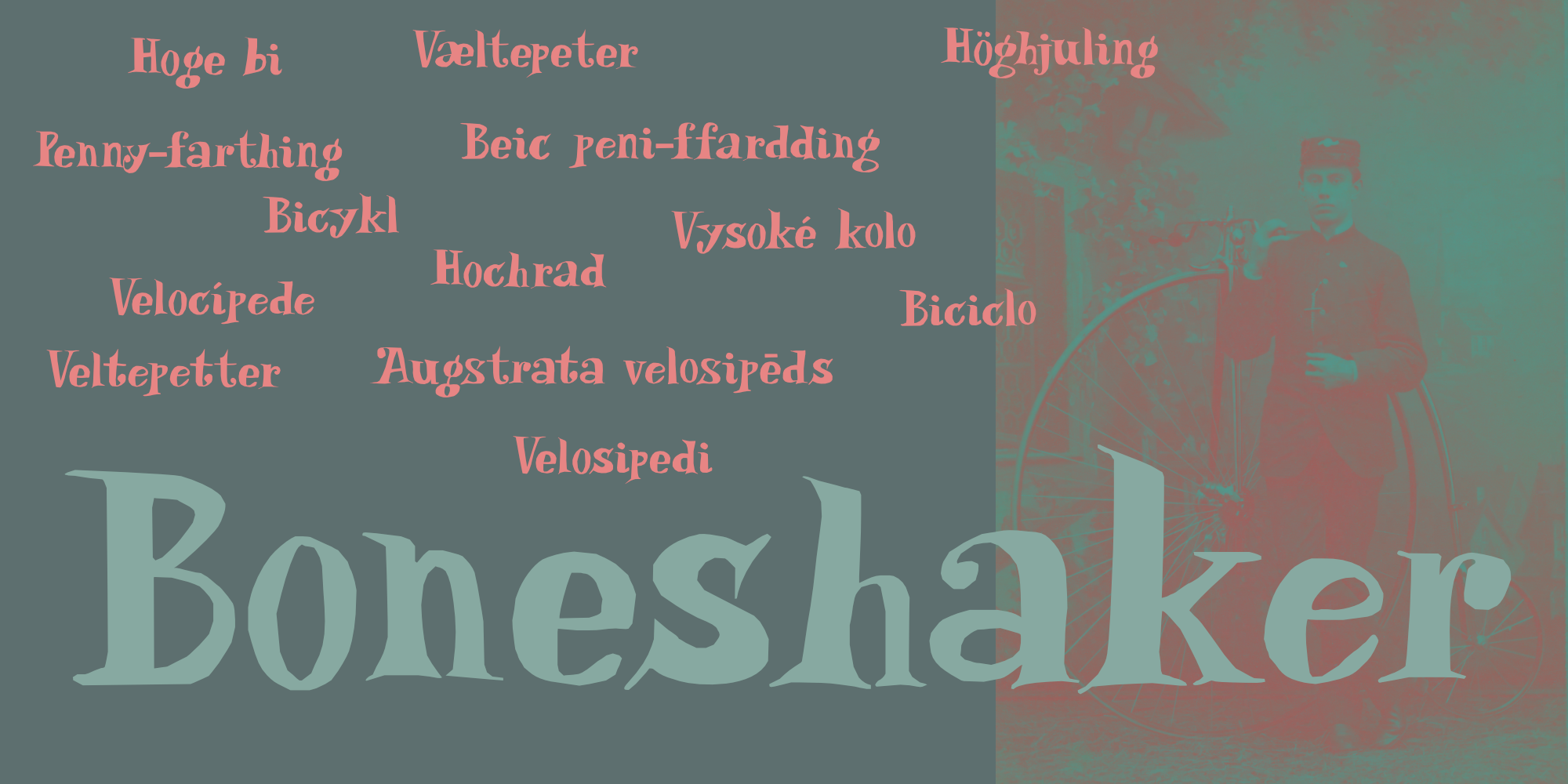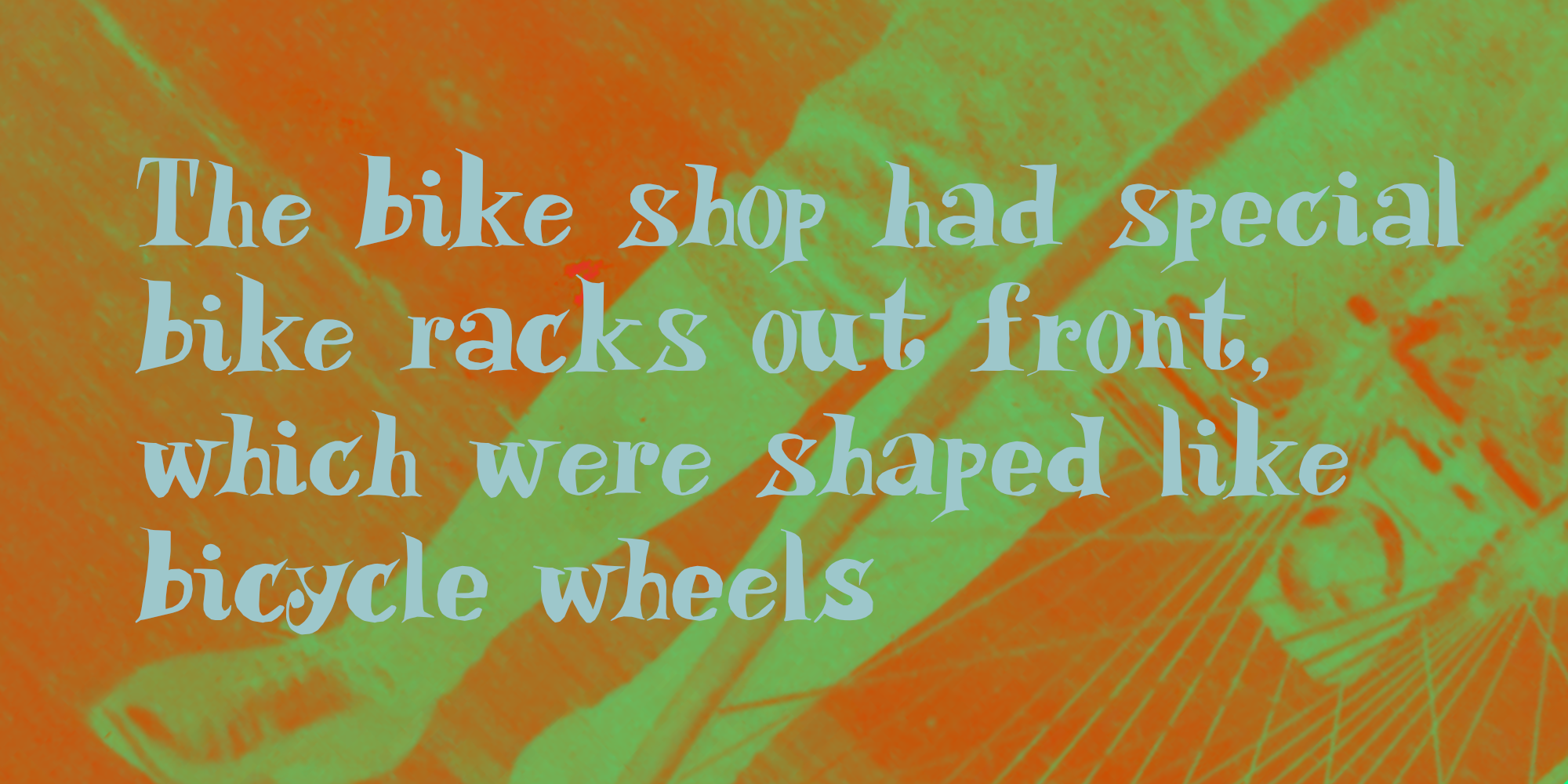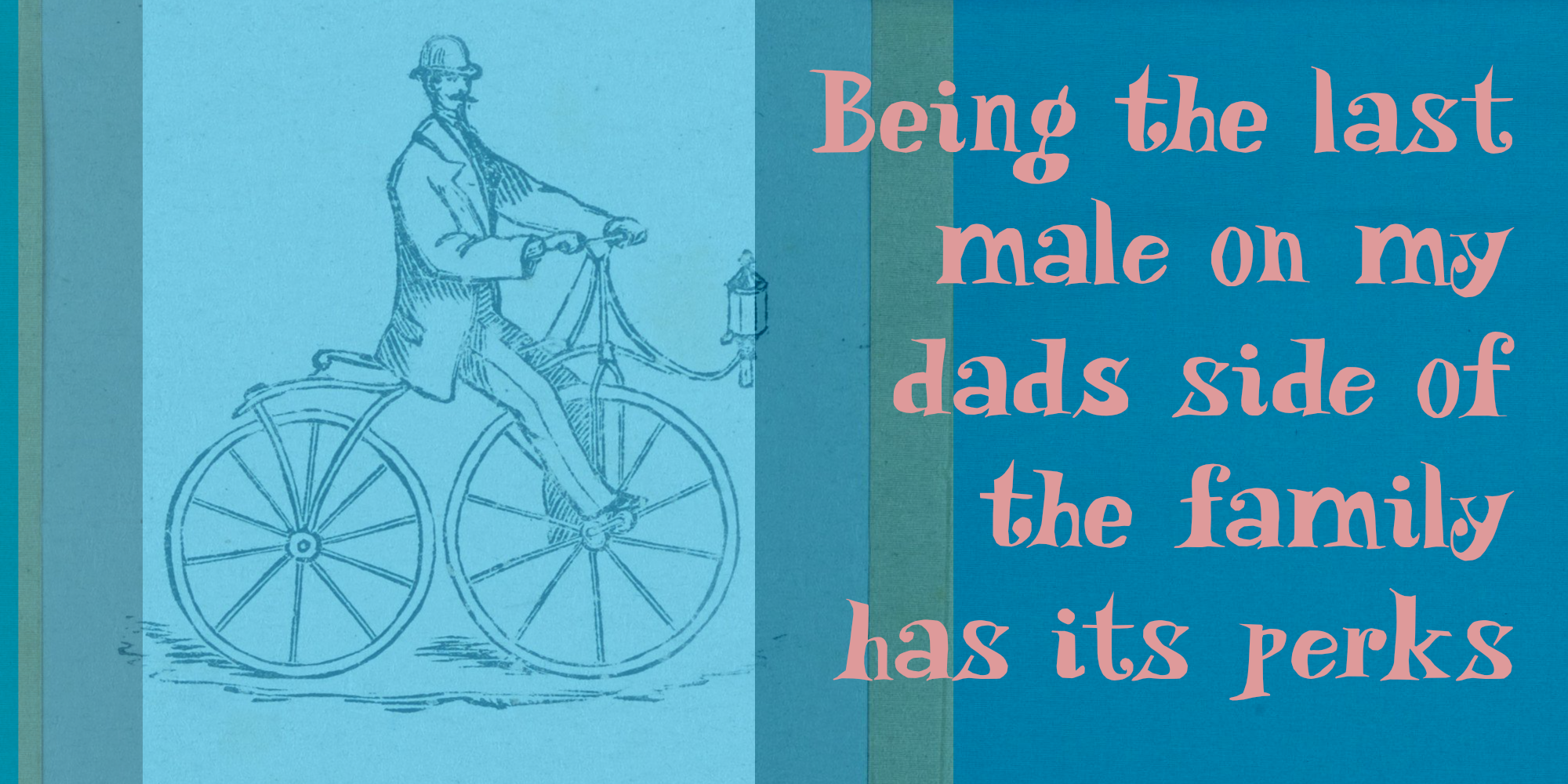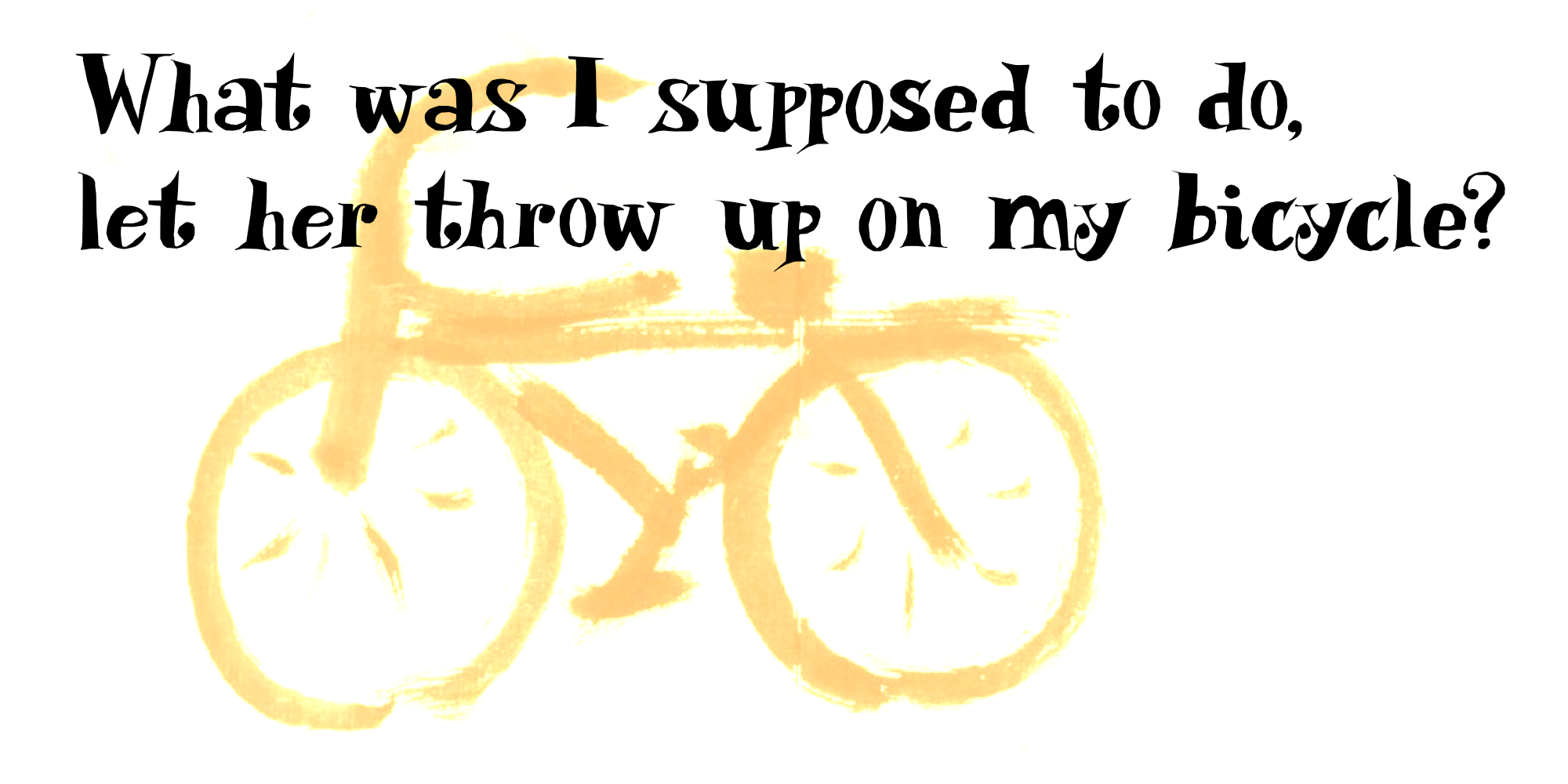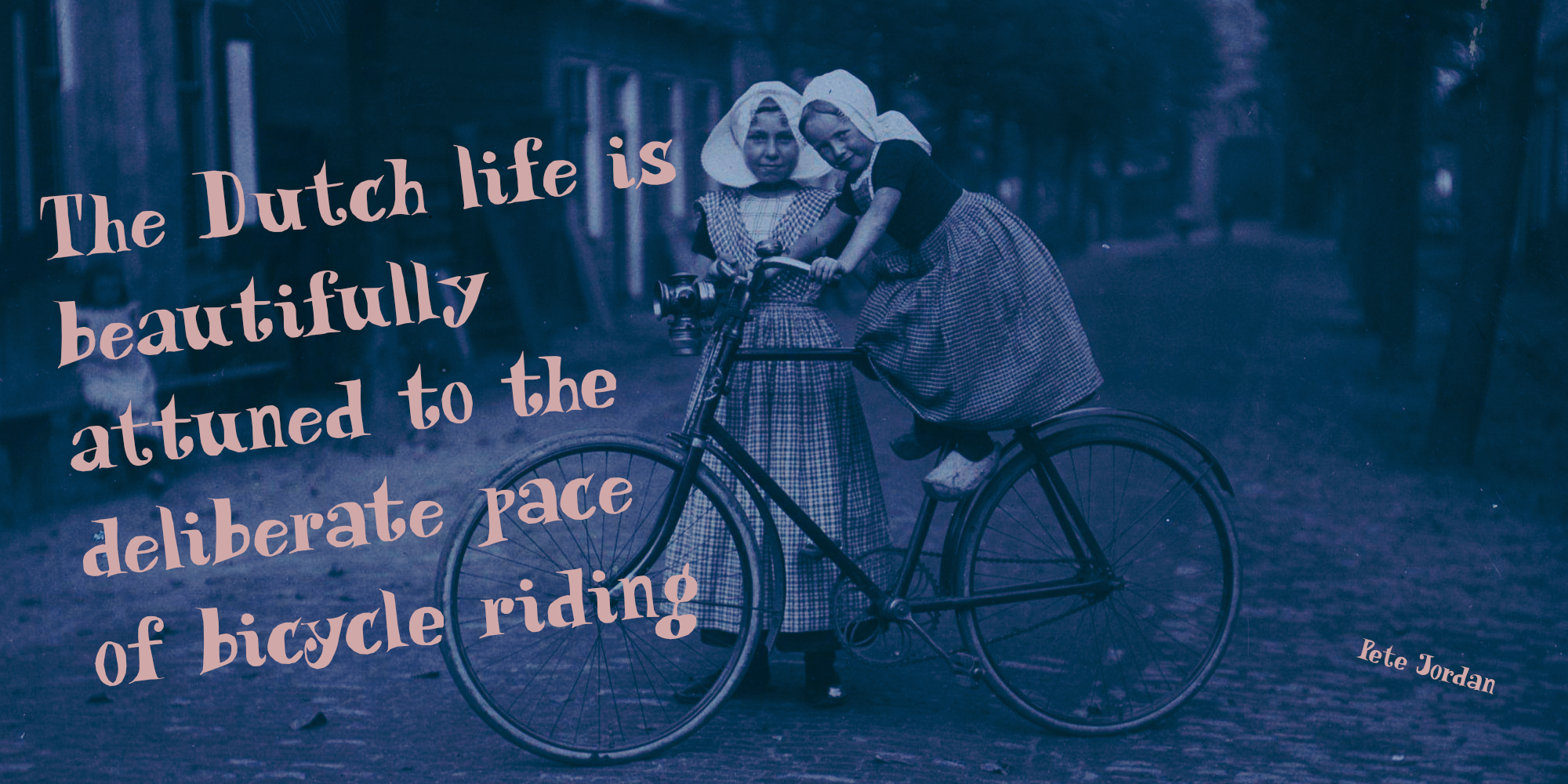
Boneshaker (2 fonts)
Boneshaker is a wonderful, handmade, fairy-tale kind of font. Use it for your book covers, your posters and quite possibly your product packaging. Comes with a cool set of stylistic alternates and extensive language support!